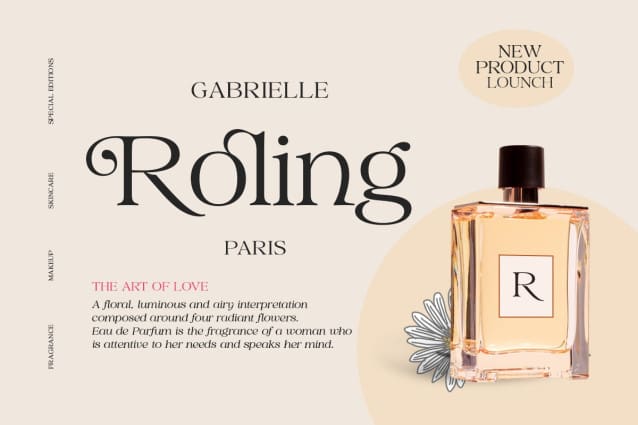
Vestige Harmony Font
Vestige Harmony Font is a stylish modern font that is a mix of serif and script. Its soft curves combined with high-contrast glyphs give it a feminine and masculine quality that feels luxurious. Very suitable for logos, headlines, titles and various other formal forms such as invitations, labels, logos, magazines, books, greeting/wedding cards, packaging, fashion, make up, stationery, novels, labels or all kinds of advertising purposes.